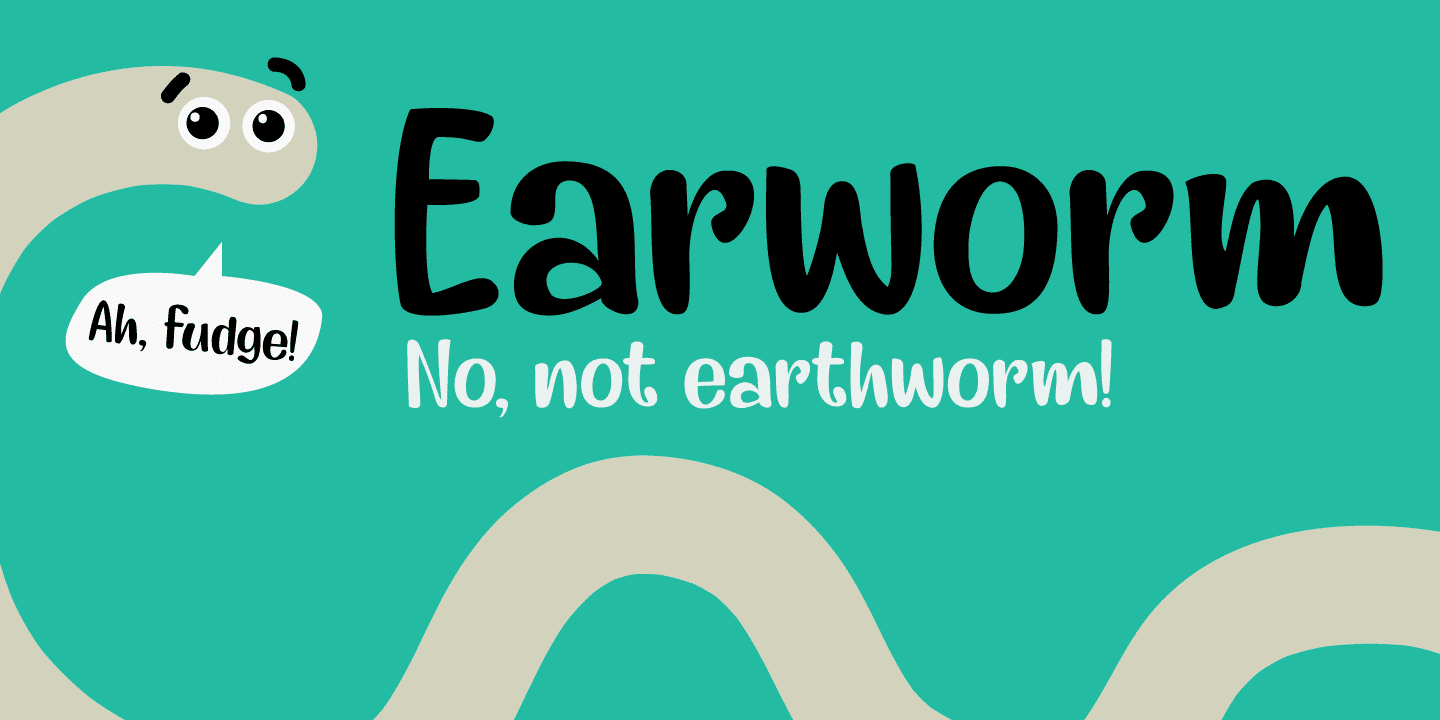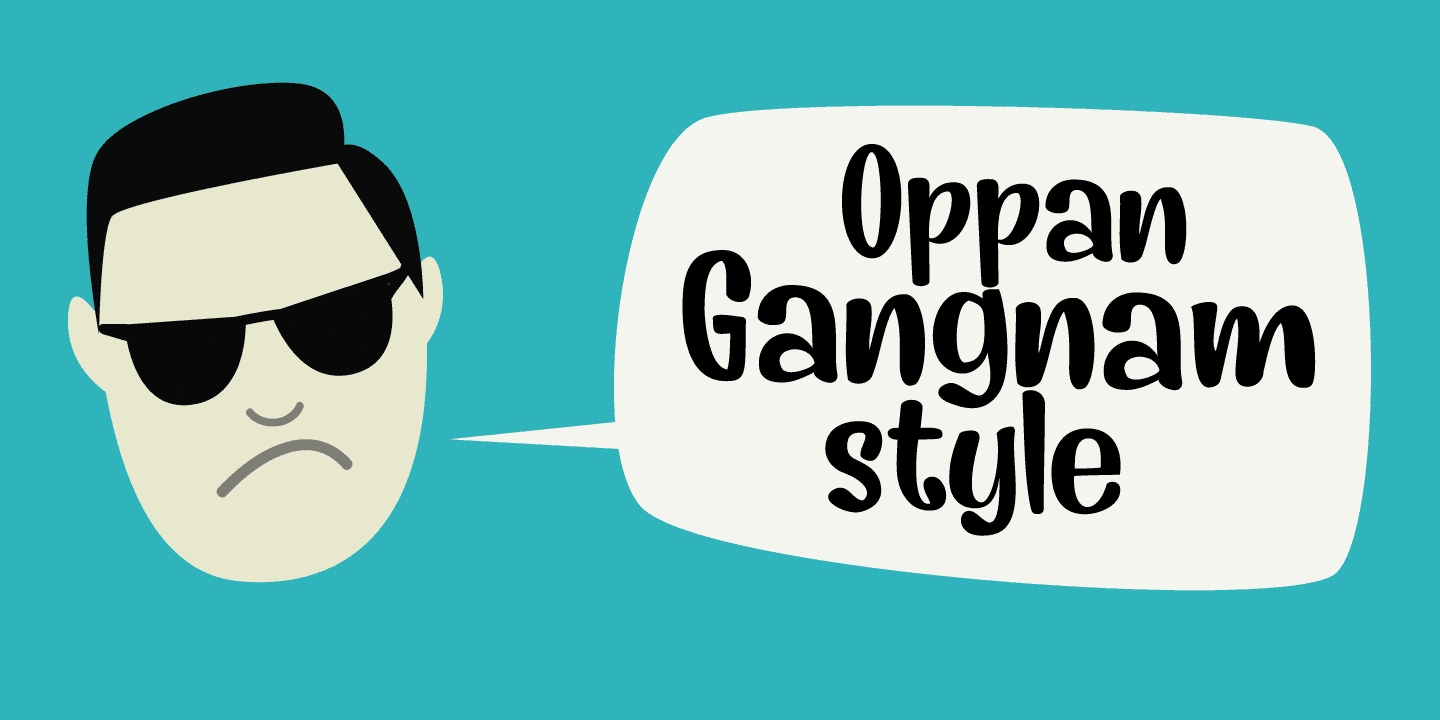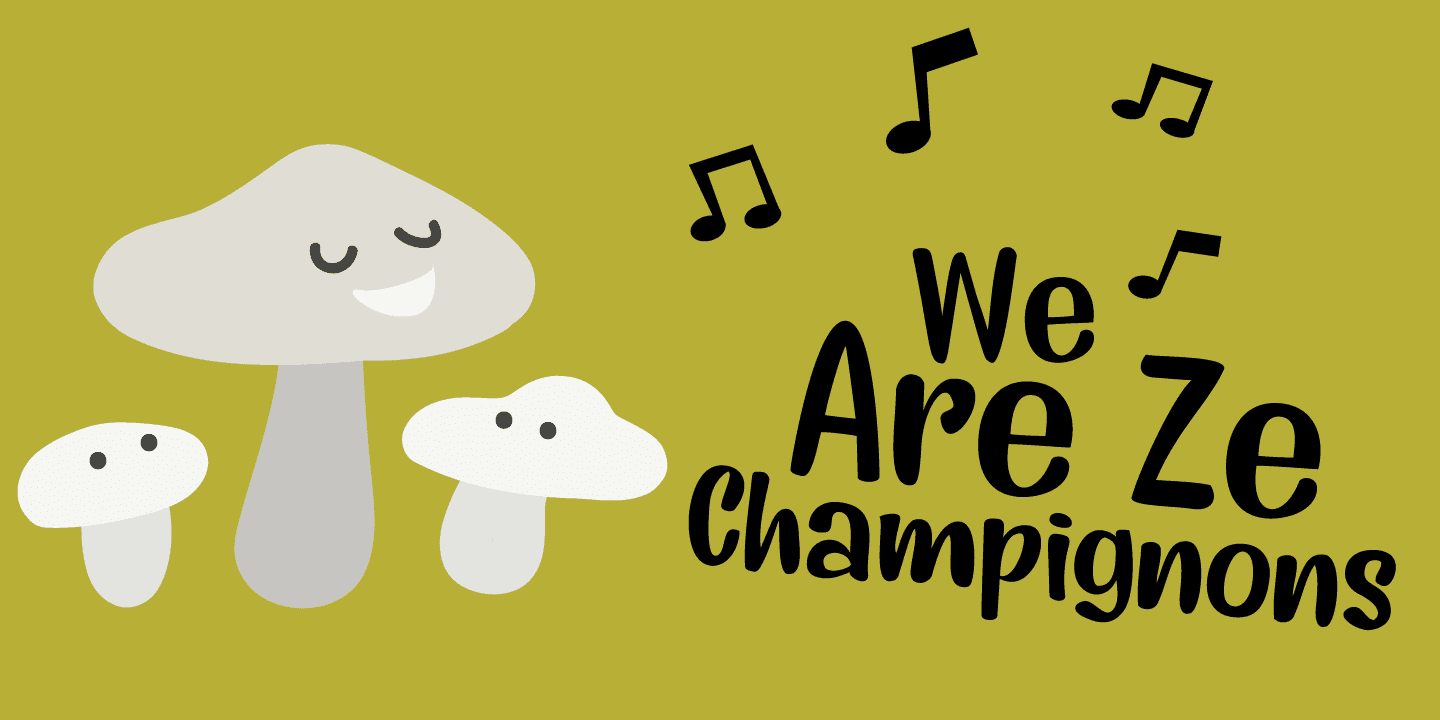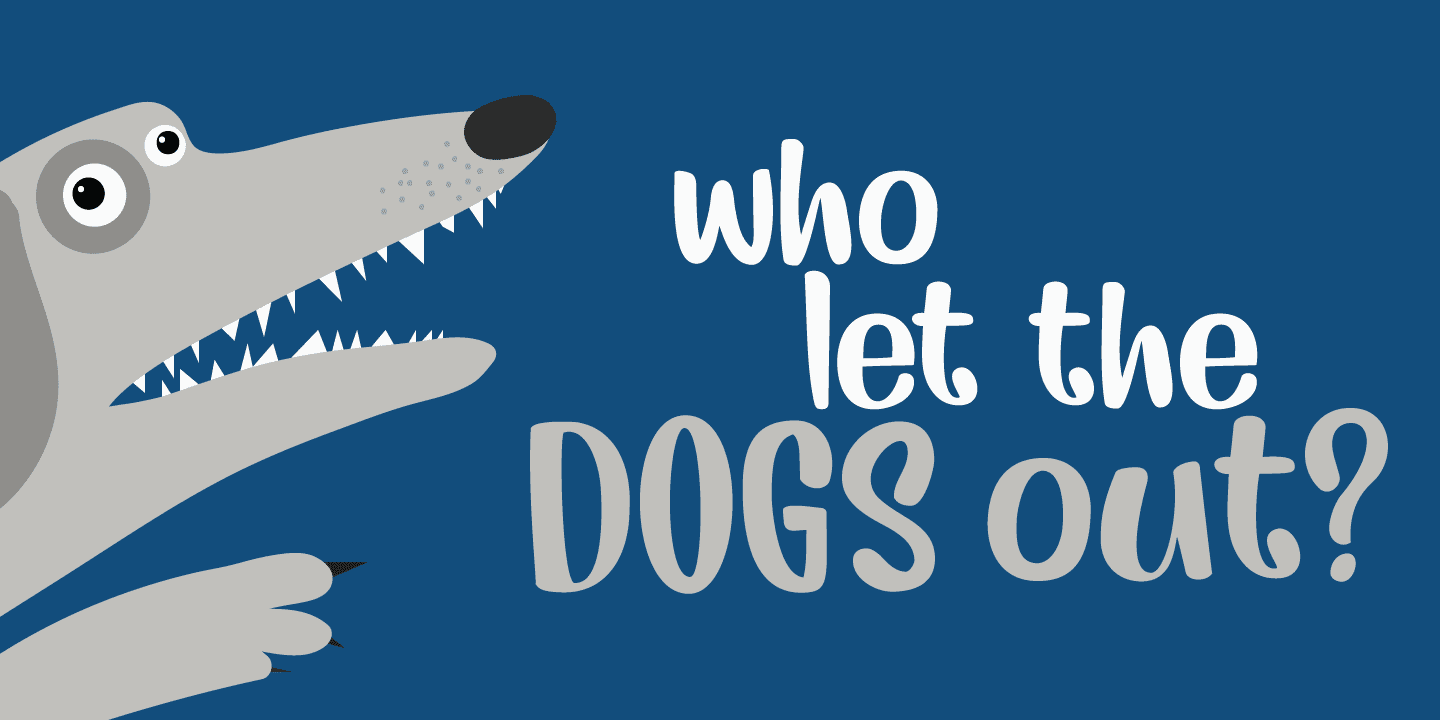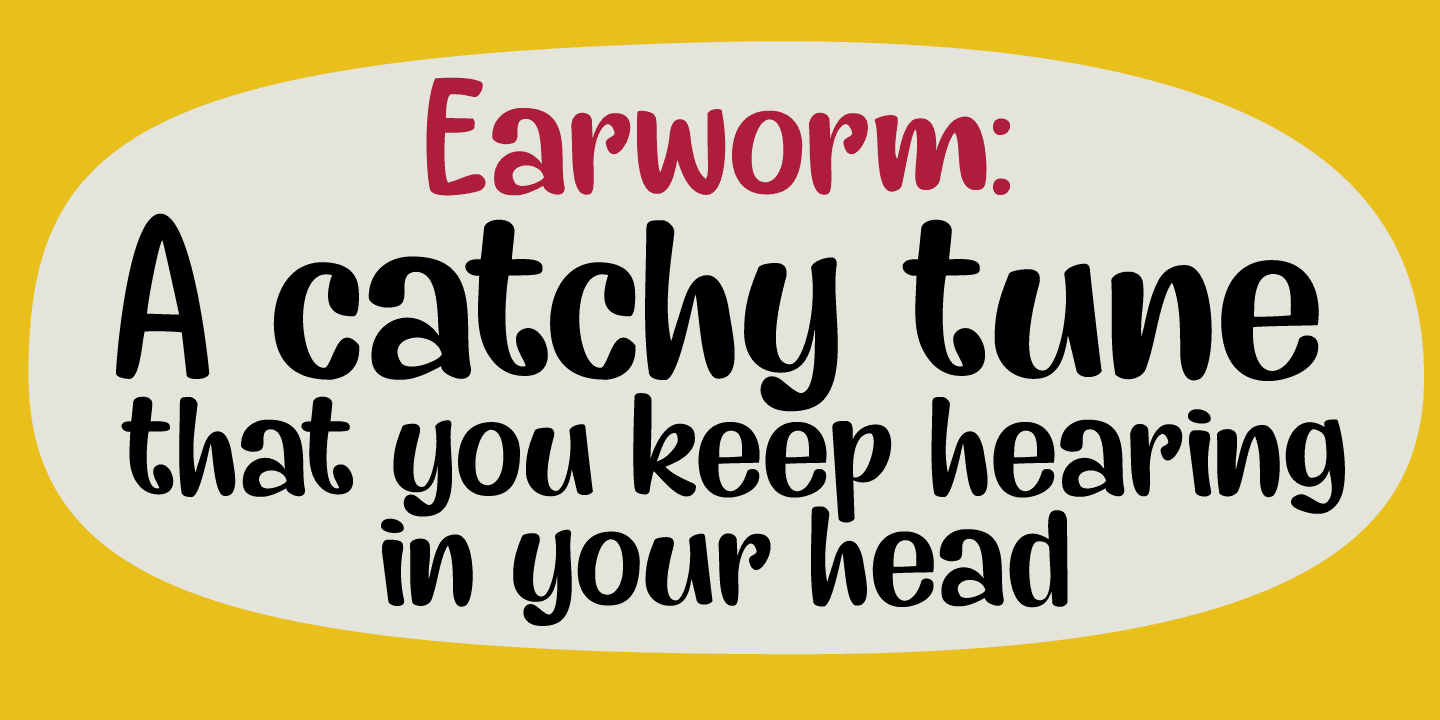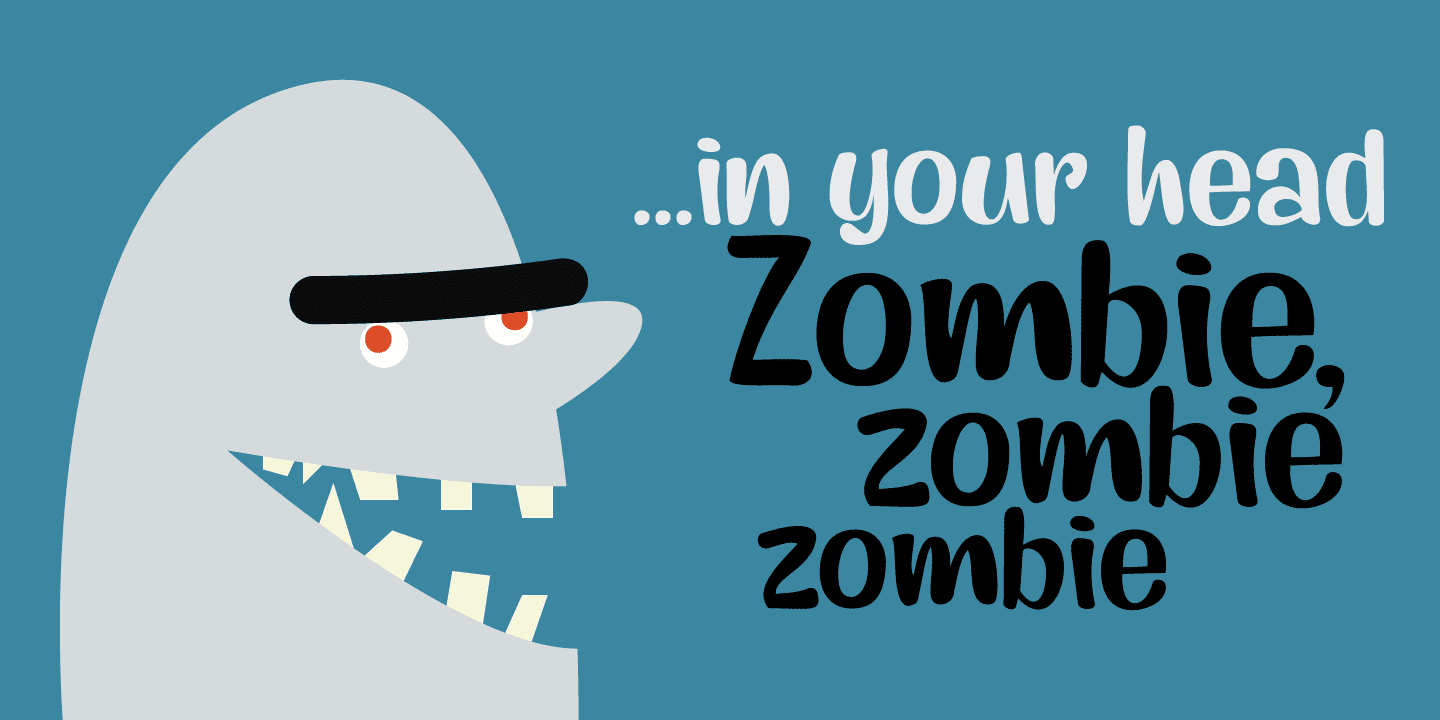
Description: An ‘Earworm’ is a catchy tune that keeps repeating itself in your head. I didn’t know this (in Holland (where I’m from), earworm (oorwurm) means earwig - you know, the animal).
Earworm is a happy handmade font. It’s a little jittery, a little quirky, but also a lot of fun to use. Now lets hope this fonts stays in your head!